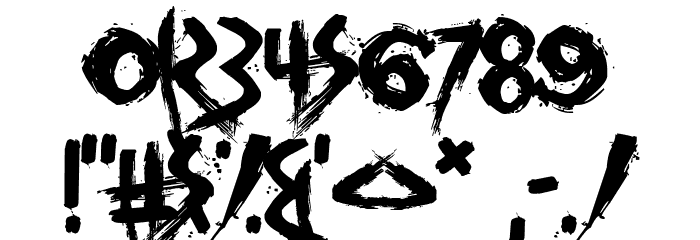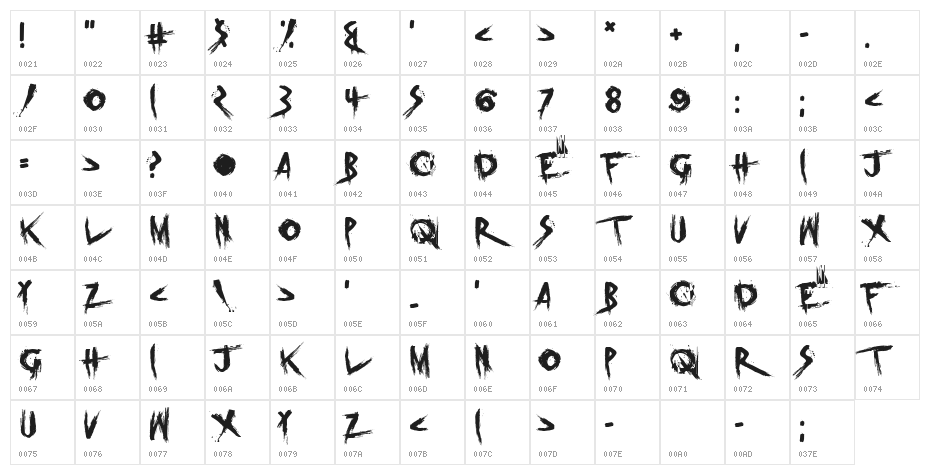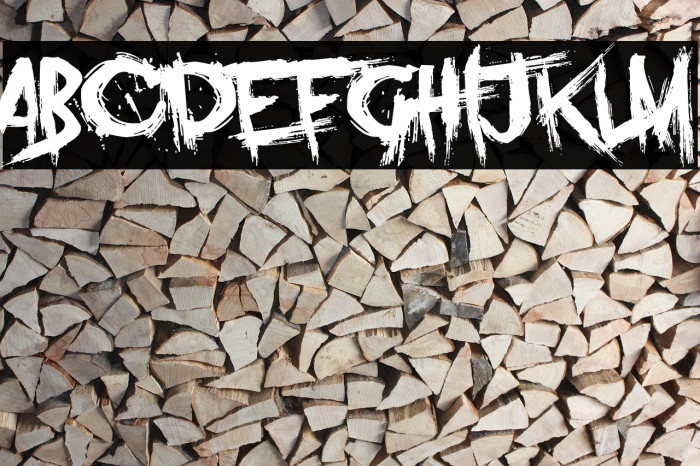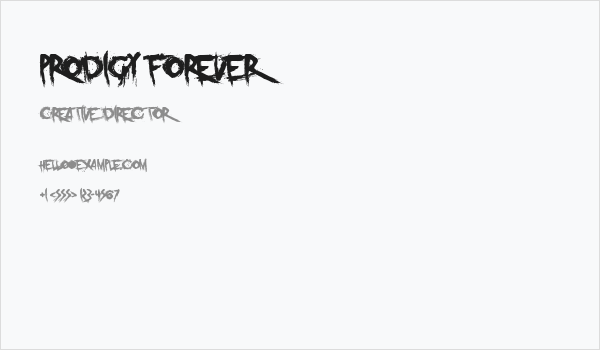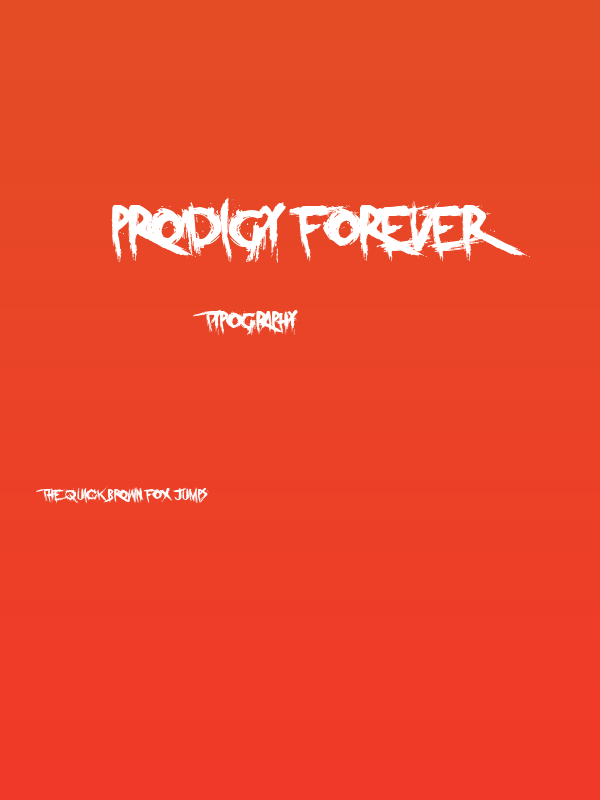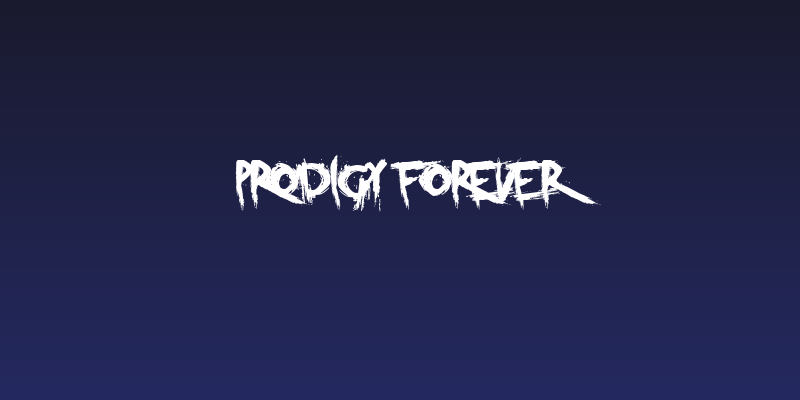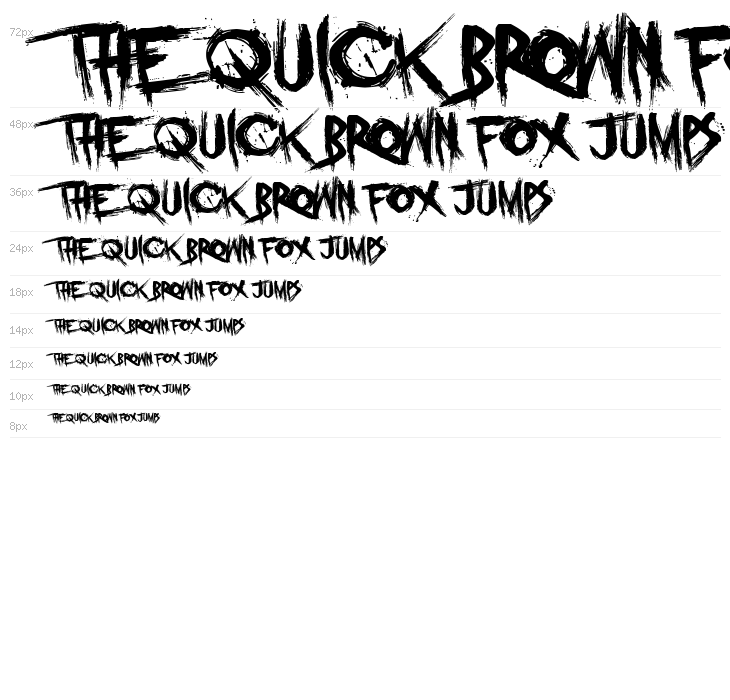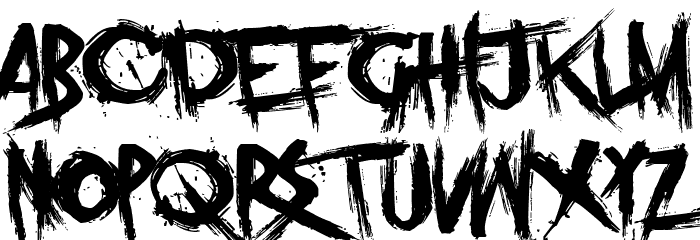
Prodigy Forever Font
Prodigy Forever Description
This font exhibits a bold and aggressive style, characterized by its jagged, brush-like strokes that convey a sense of raw energy and intensity. The letters are unevenly shaped, with sharp angles and irregular edges, giving it a rebellious and edgy appearance. The uppercase and lowercase letters maintain a consistent style, while the numbers and special characters follow the same rugged aesthetic. This font is reminiscent of graffiti or street art, making it ideal for projects that require a bold and unconventional look.
| Overall Style | Modern, Edgy |
| Proposed Projects | Ideal for music album covers, streetwear branding, event posters, and any project that seeks to capture an urban or rebellious vibe. |